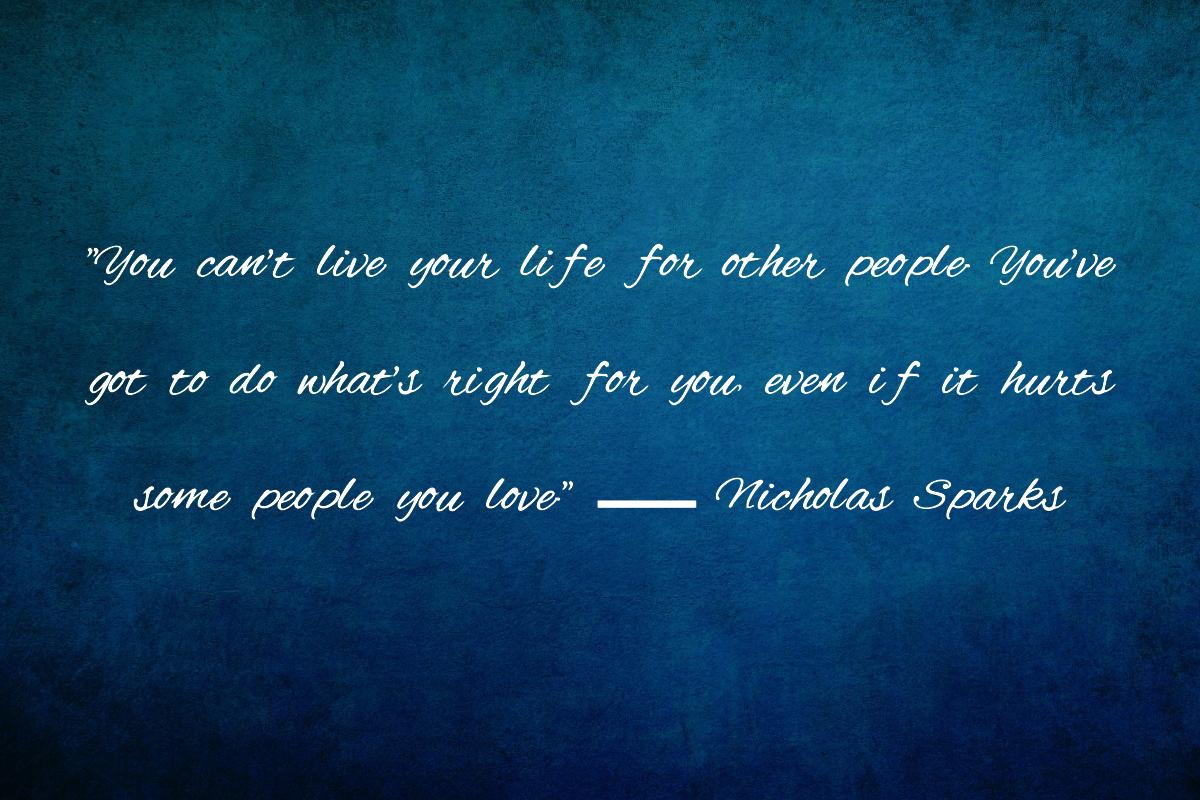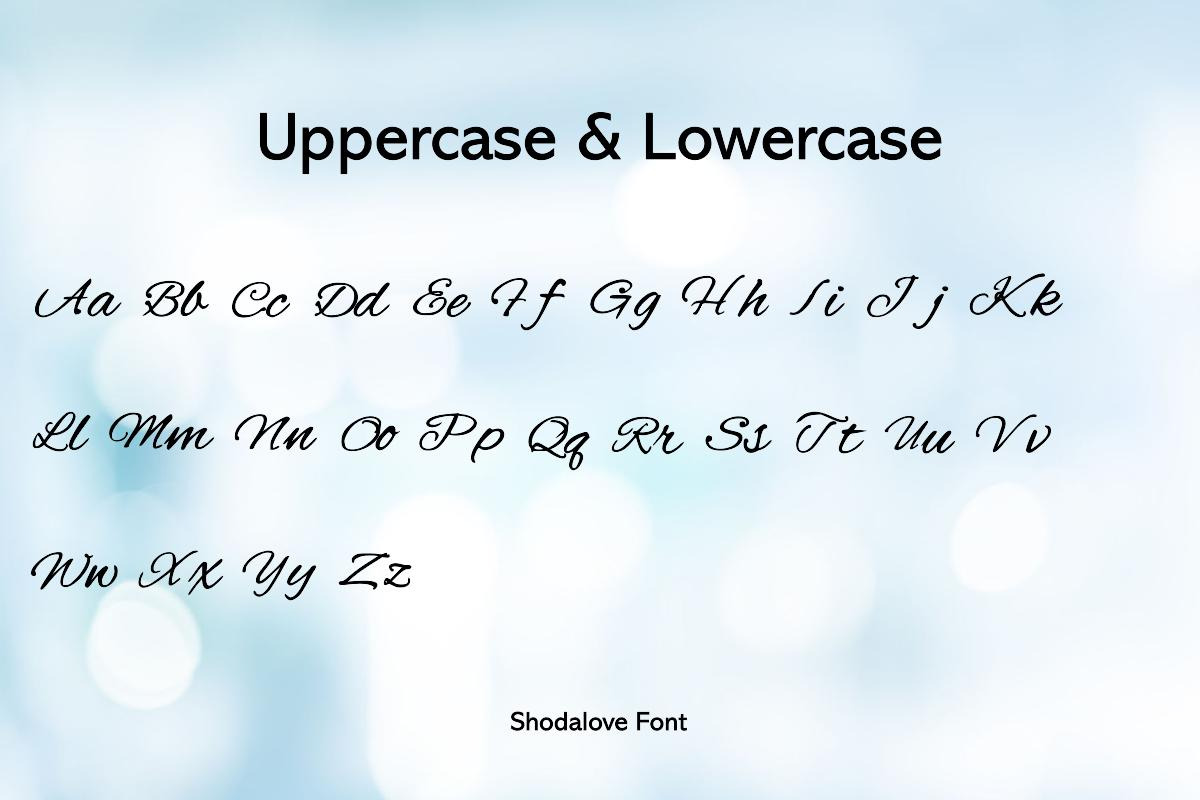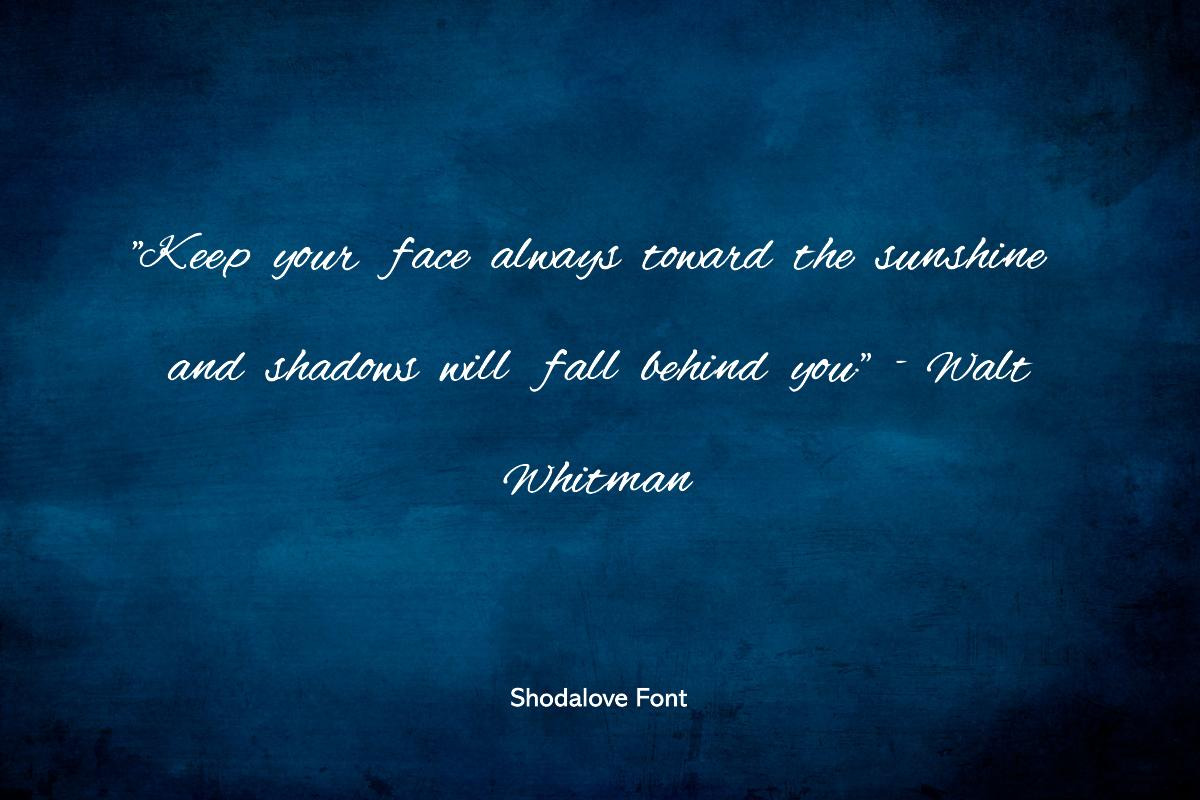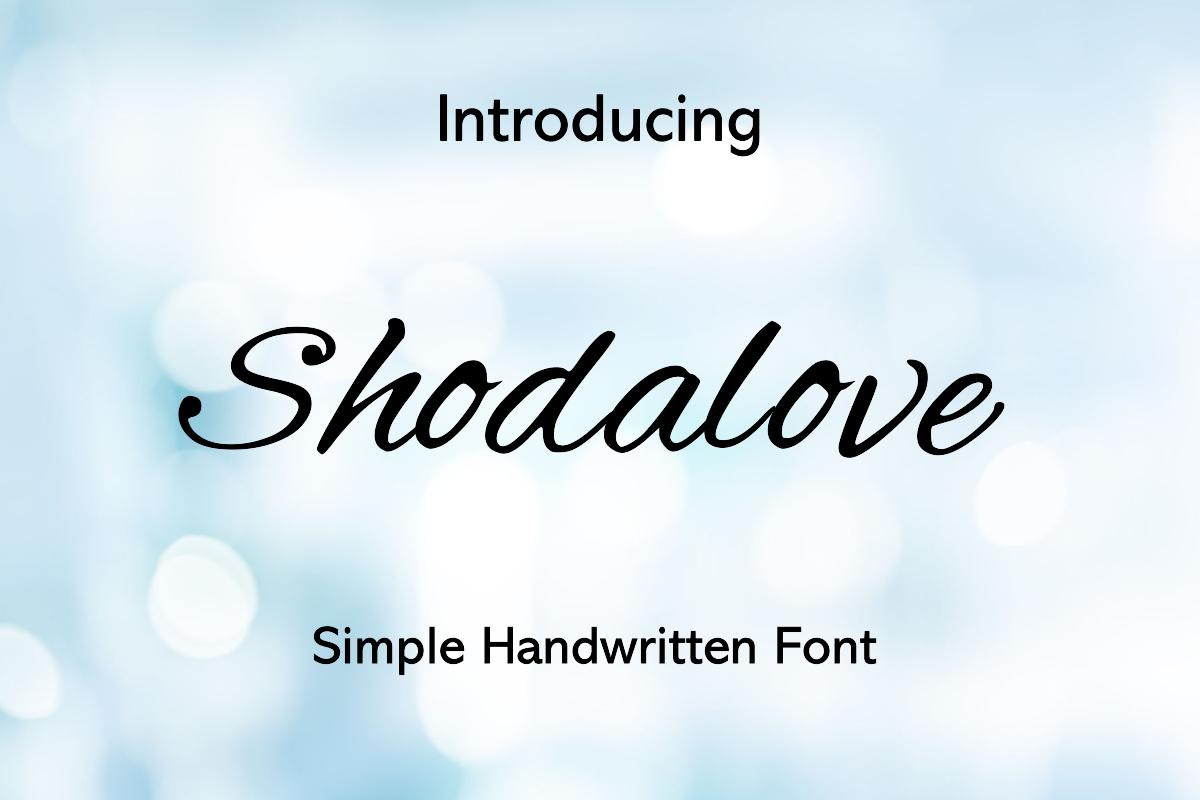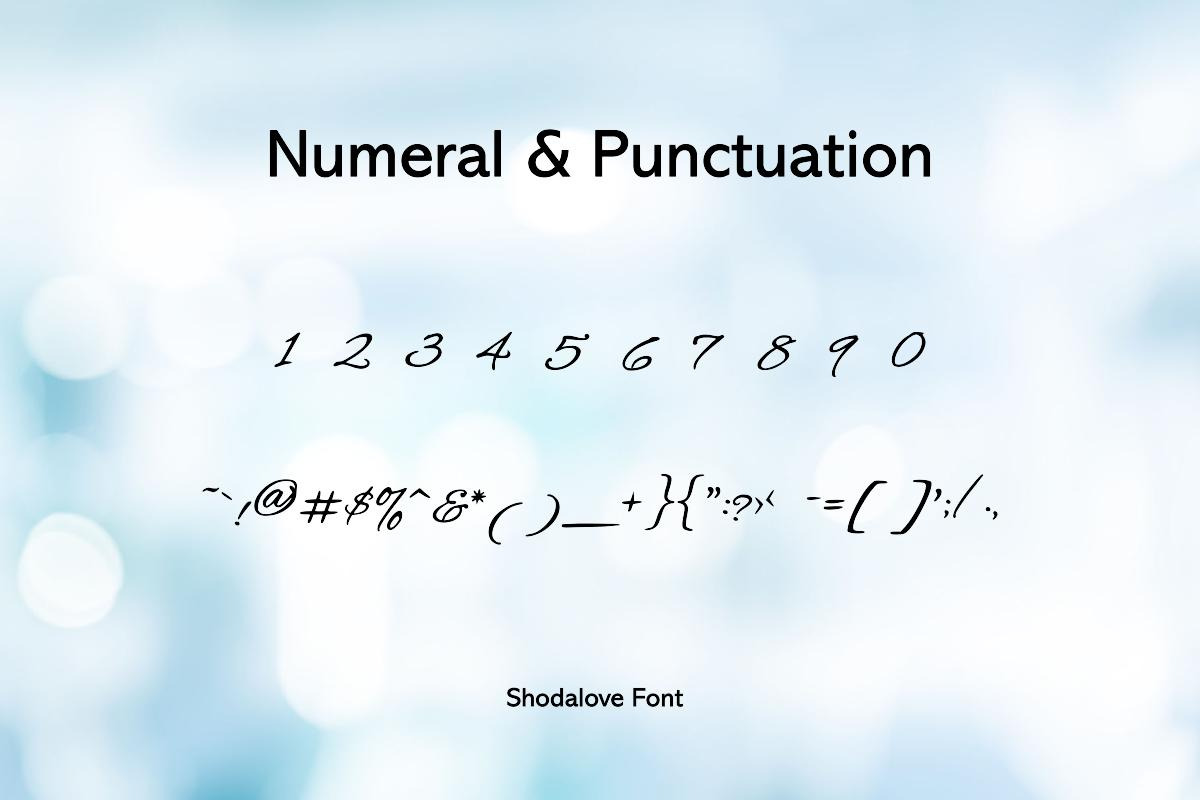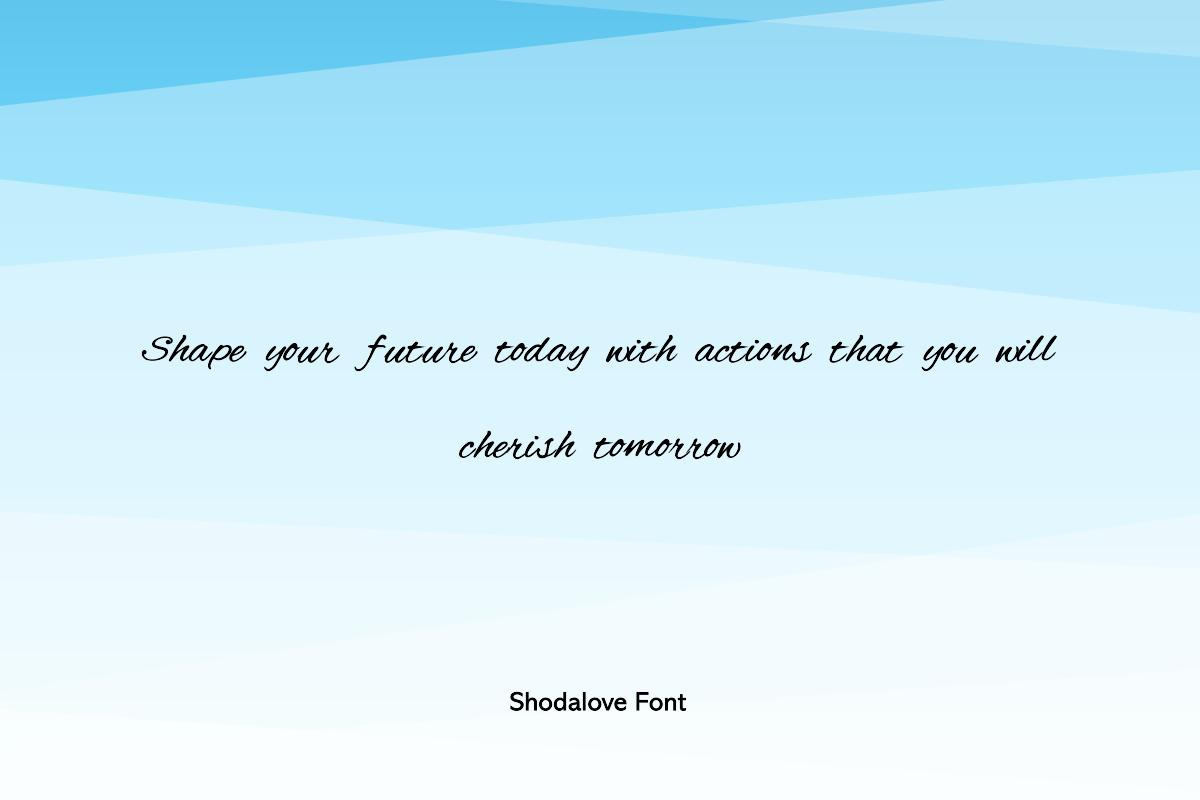
Shodalove Handwritten Font
Introducing 'Shodalove' – Embrace the charm of handwritten notes with Shodalove, a digital font that captures the essence of personal touch in every curve and line. This simple yet elegant font is designed to bring a unique warmth to your digital creations, making it perfect for:
- Wedding Invitations: Add a romantic flair to your invites with Shodalove's flowing script.
- Branding Materials: Stand out with a logo or tagline that feels personal and approachable.
- Social Media Graphics: Give your posts a human touch that resonates with your audience.
- Personal Correspondence: Make your digital letters feel as intimate as handwritten ones.
With Shodalove, your projects will convey authenticity and sophistication. Whether you're designing for clients or crafting personal projects, this font will add a distinctive character that's sure to captivate.